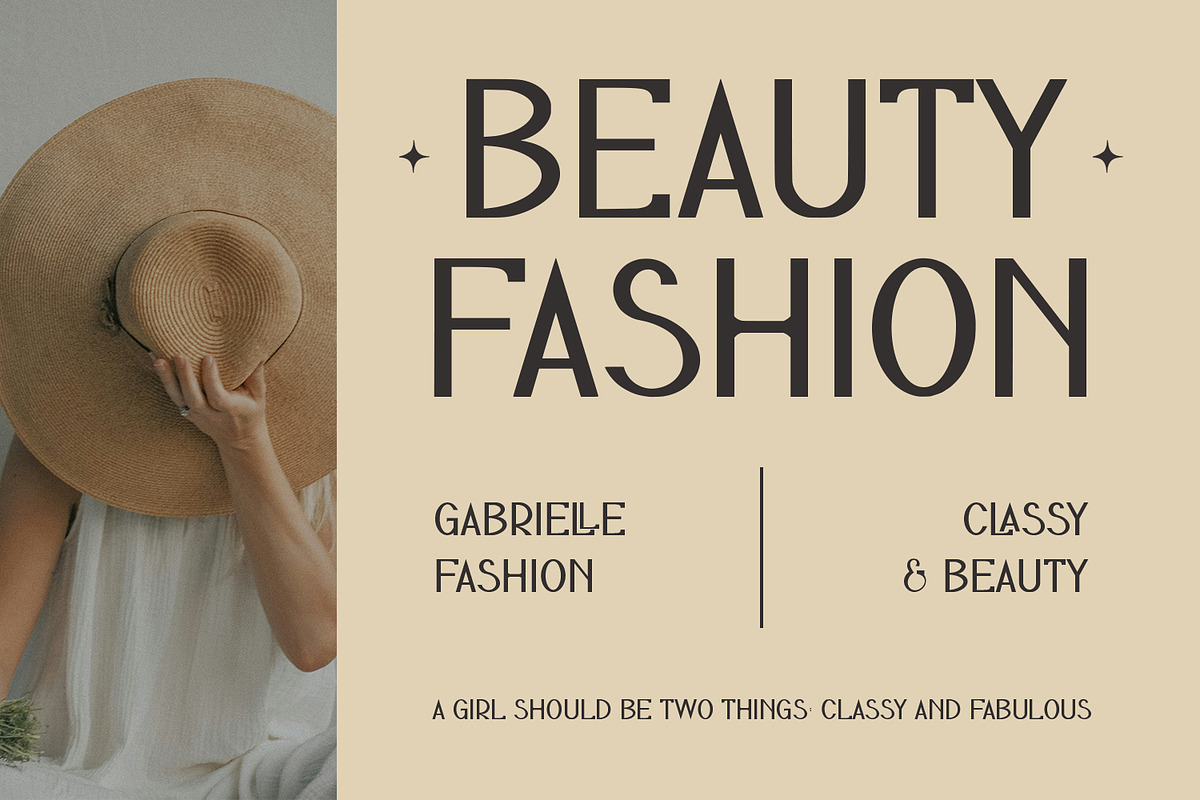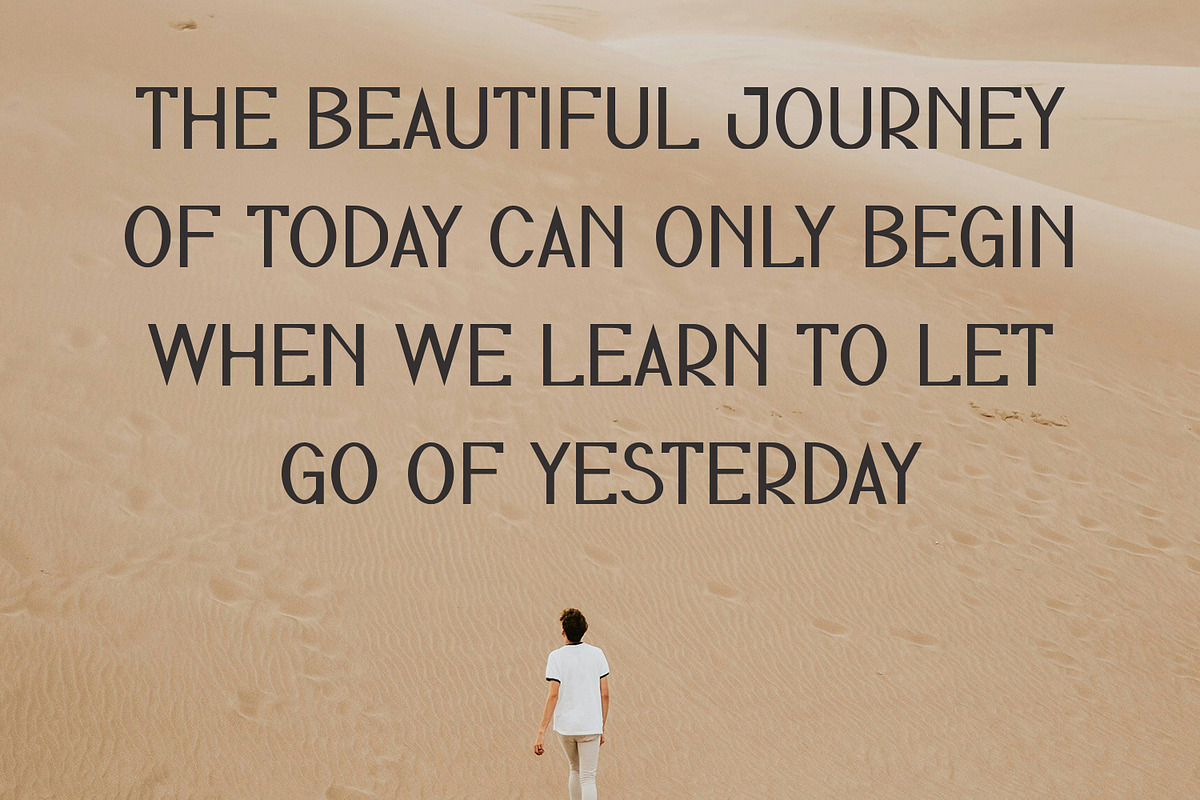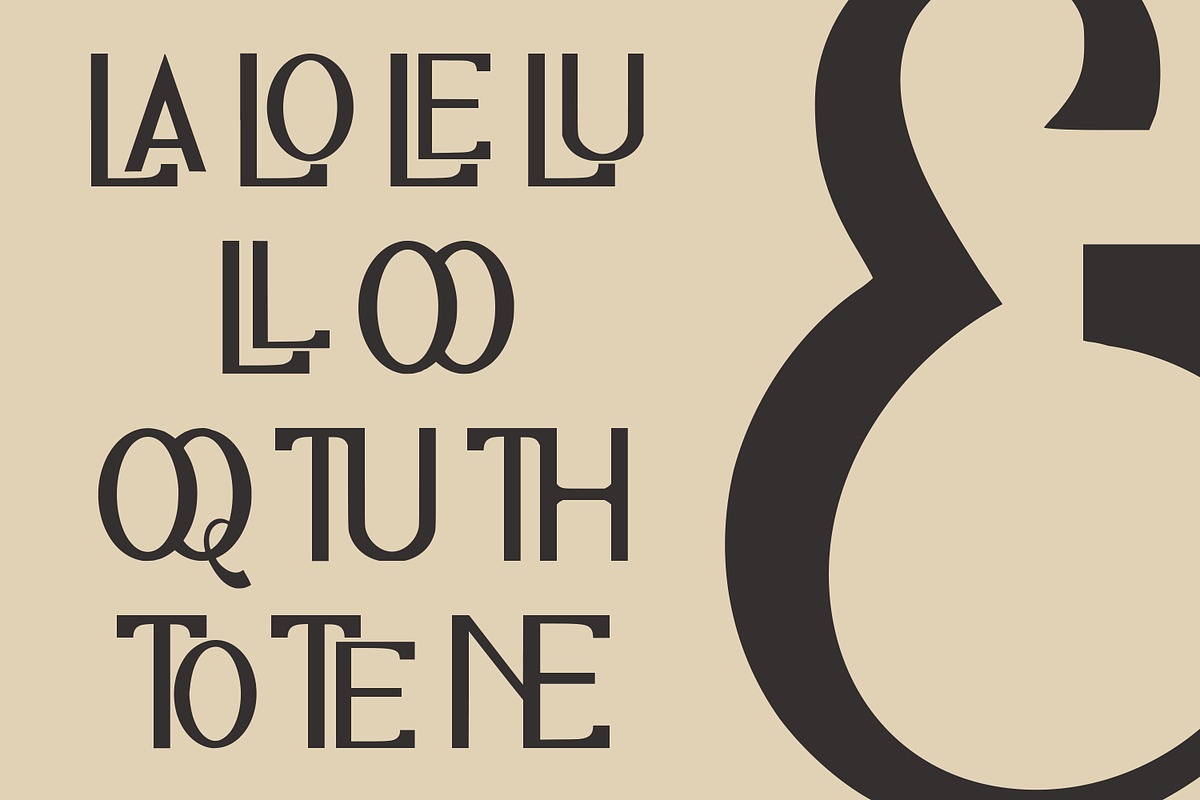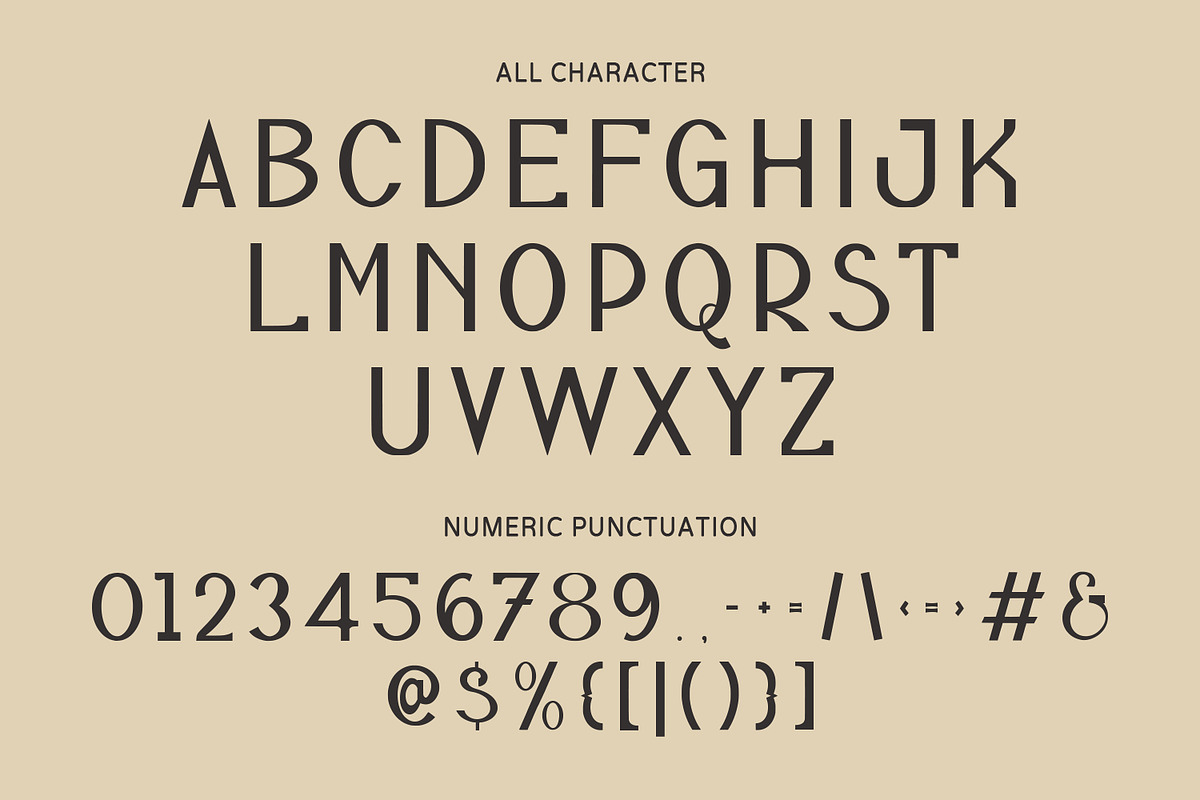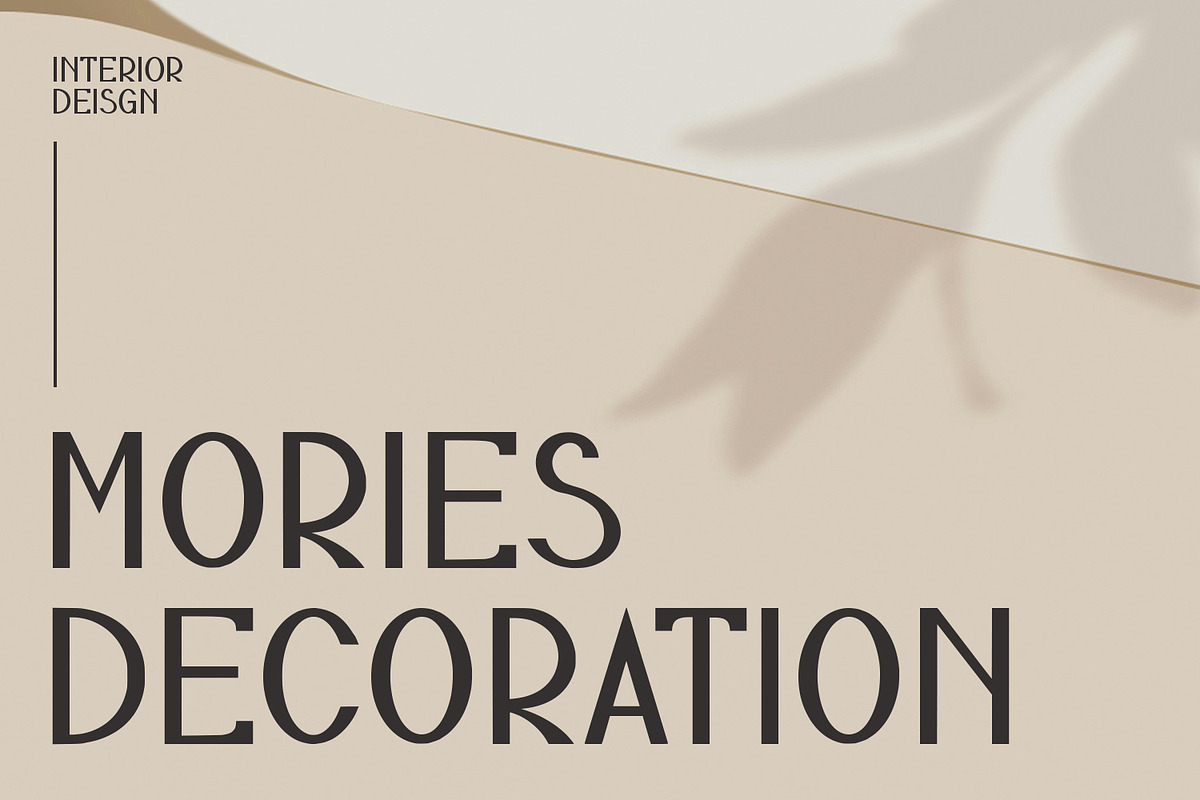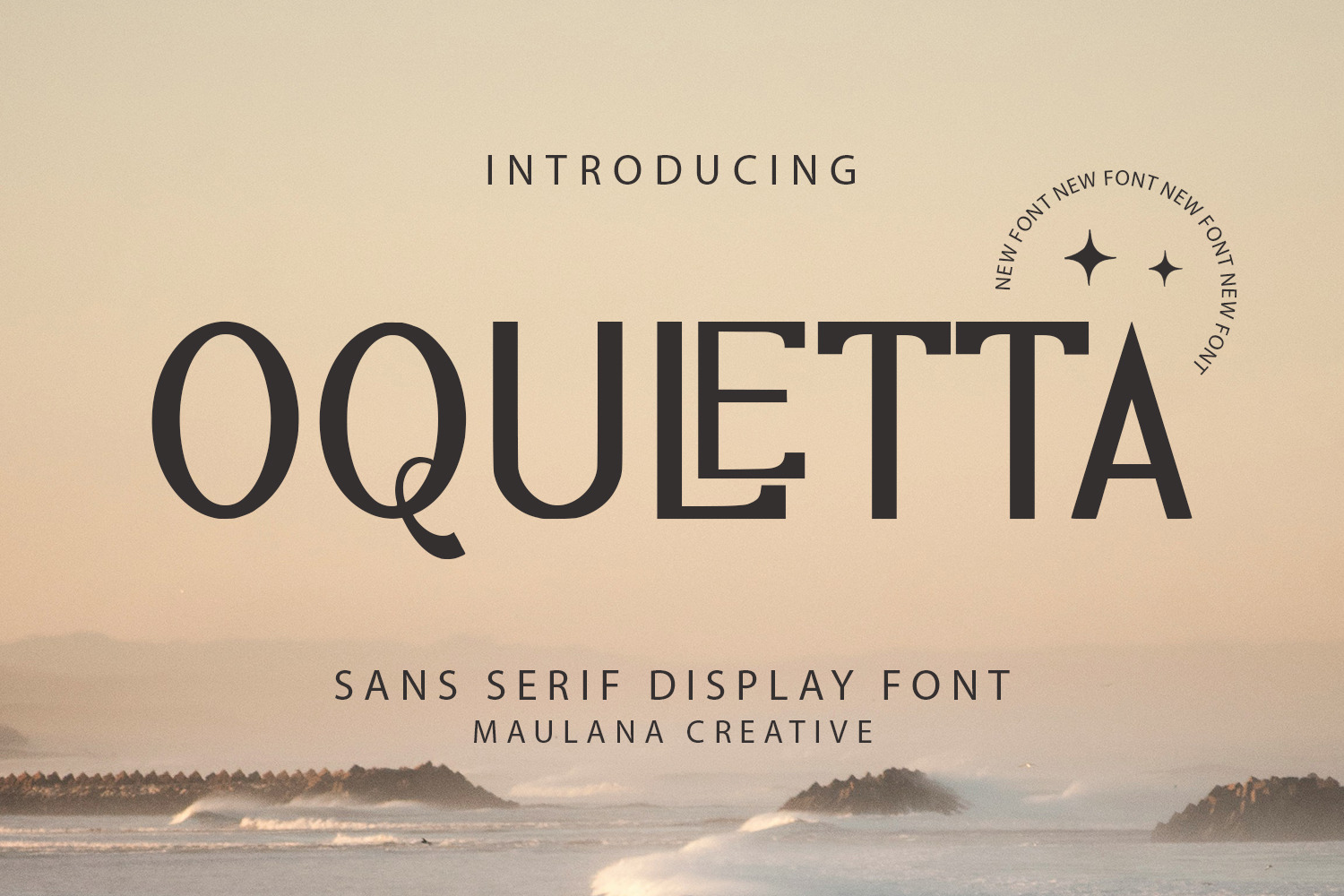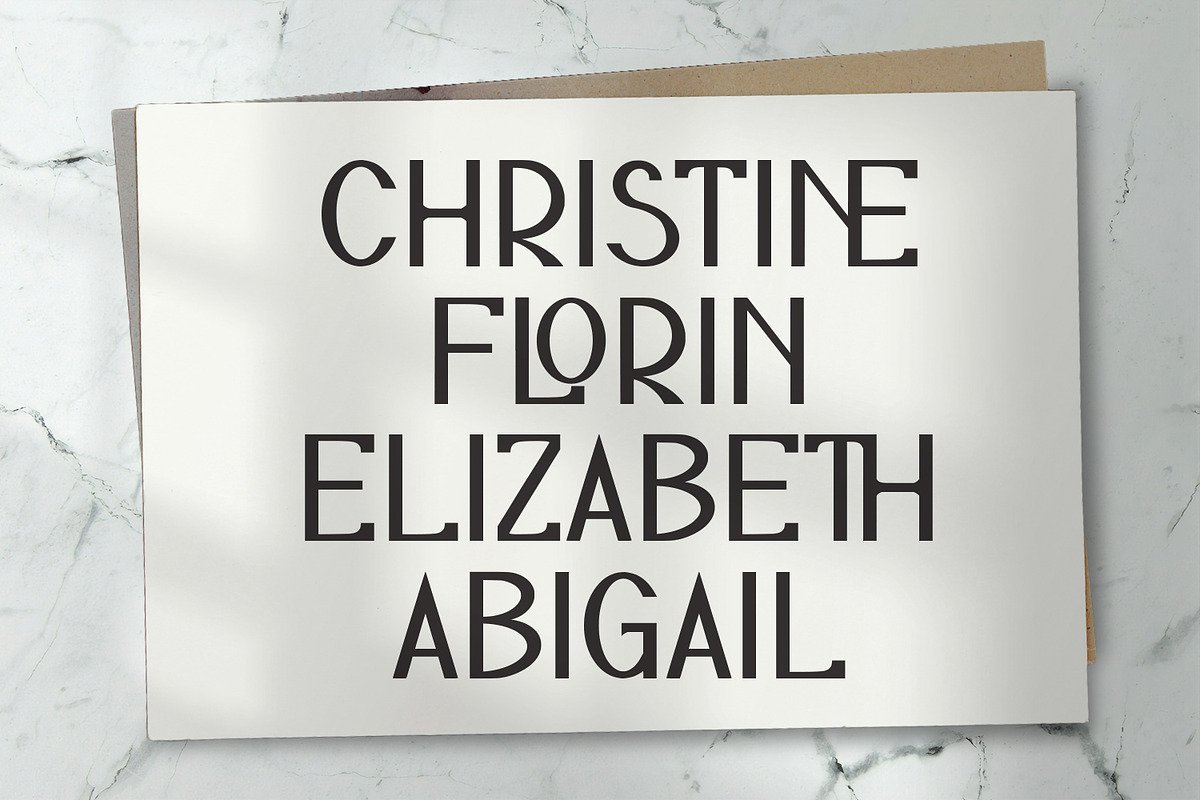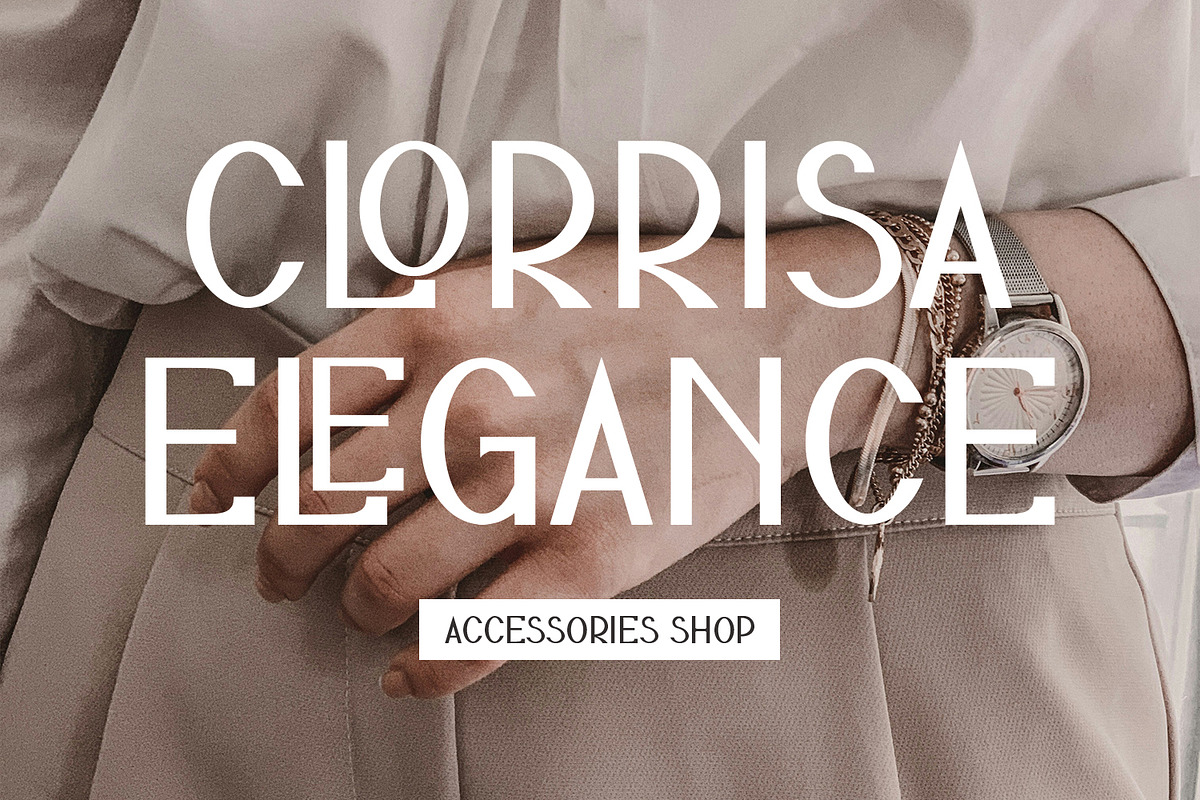
Oquletta Sans Display Font
Oquletta is a fancy vintage sans font. With bold tall and sharp stroke, fun character with a bit of ligatures. To give you an extra creative work. Oquletta font support multilingual more than 100+ language. This font is good for logo design, Social media, Movie Titles, Books Titles, a short text even a long text letter and good for your secondary text font with sans or serif. Make a stunning work with Oquletta font.